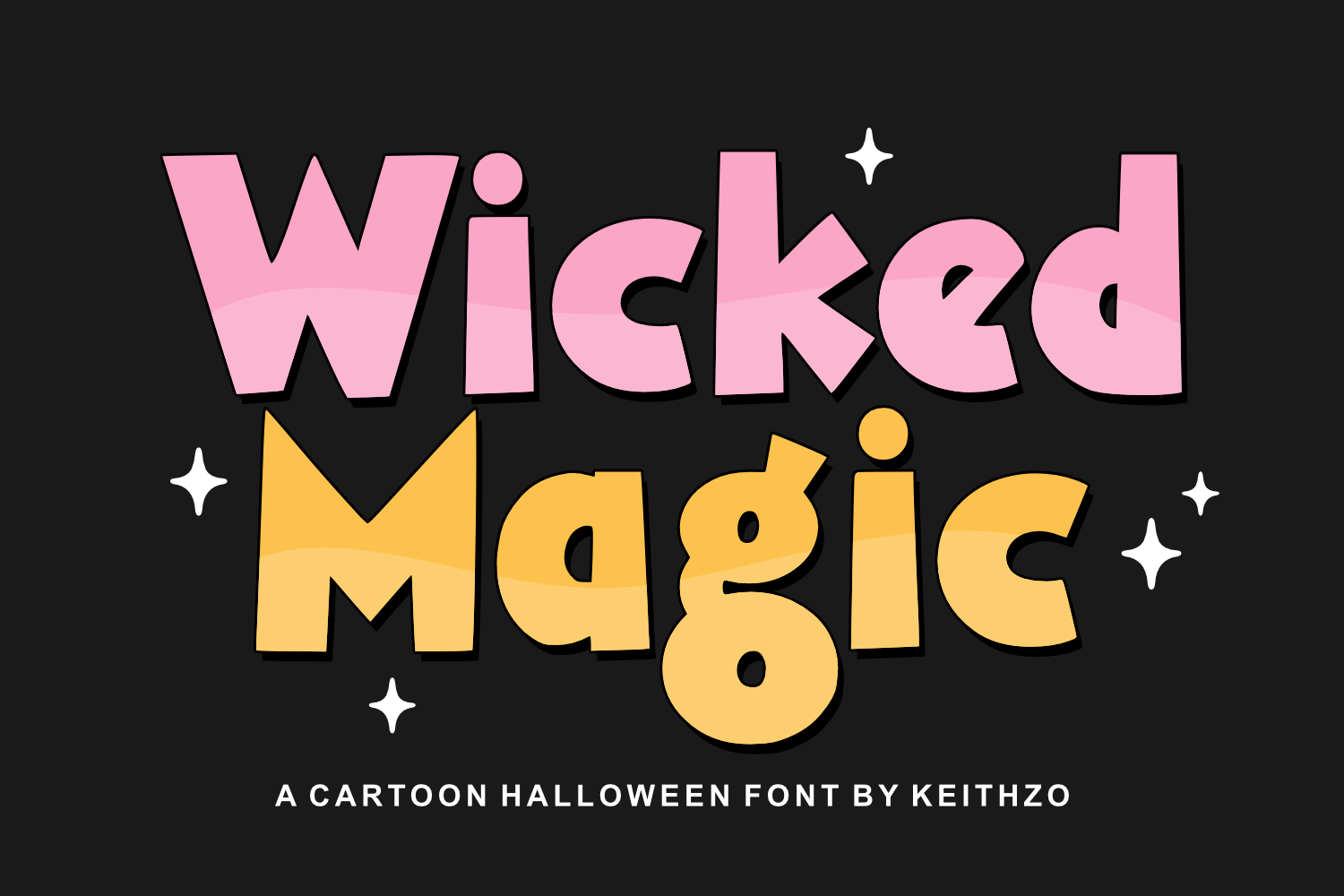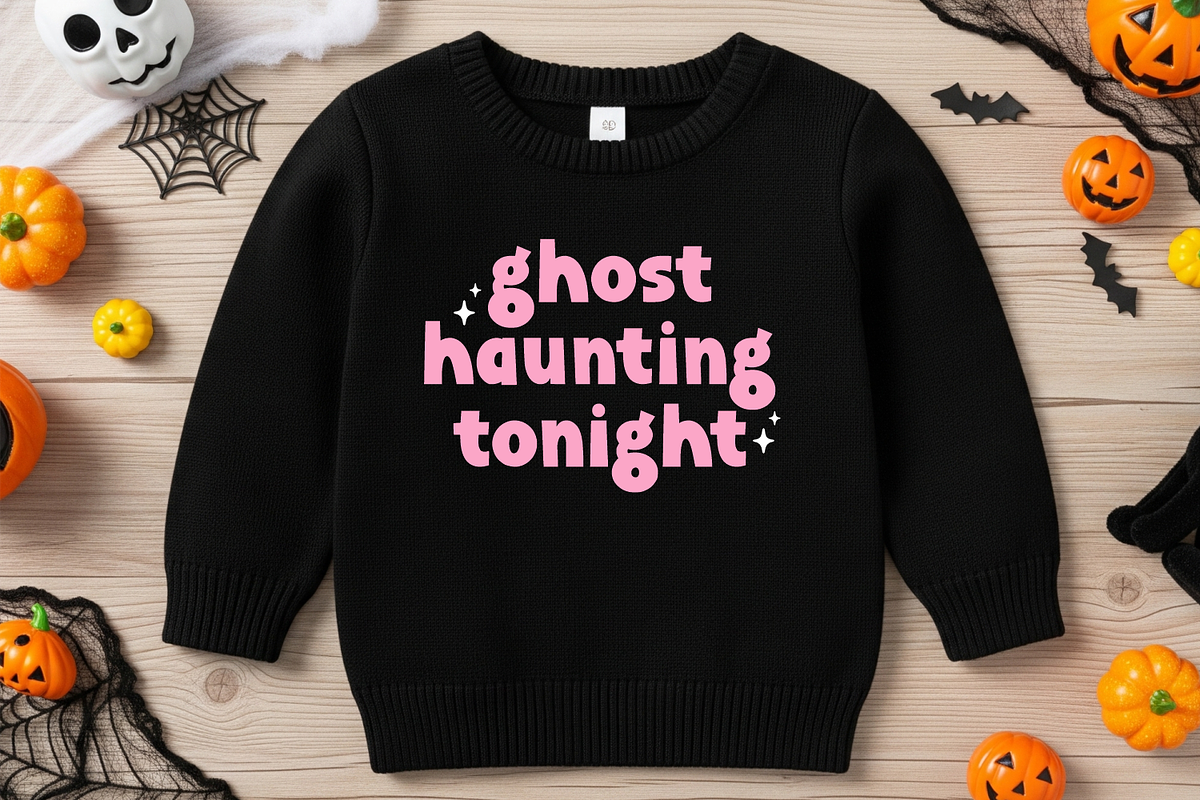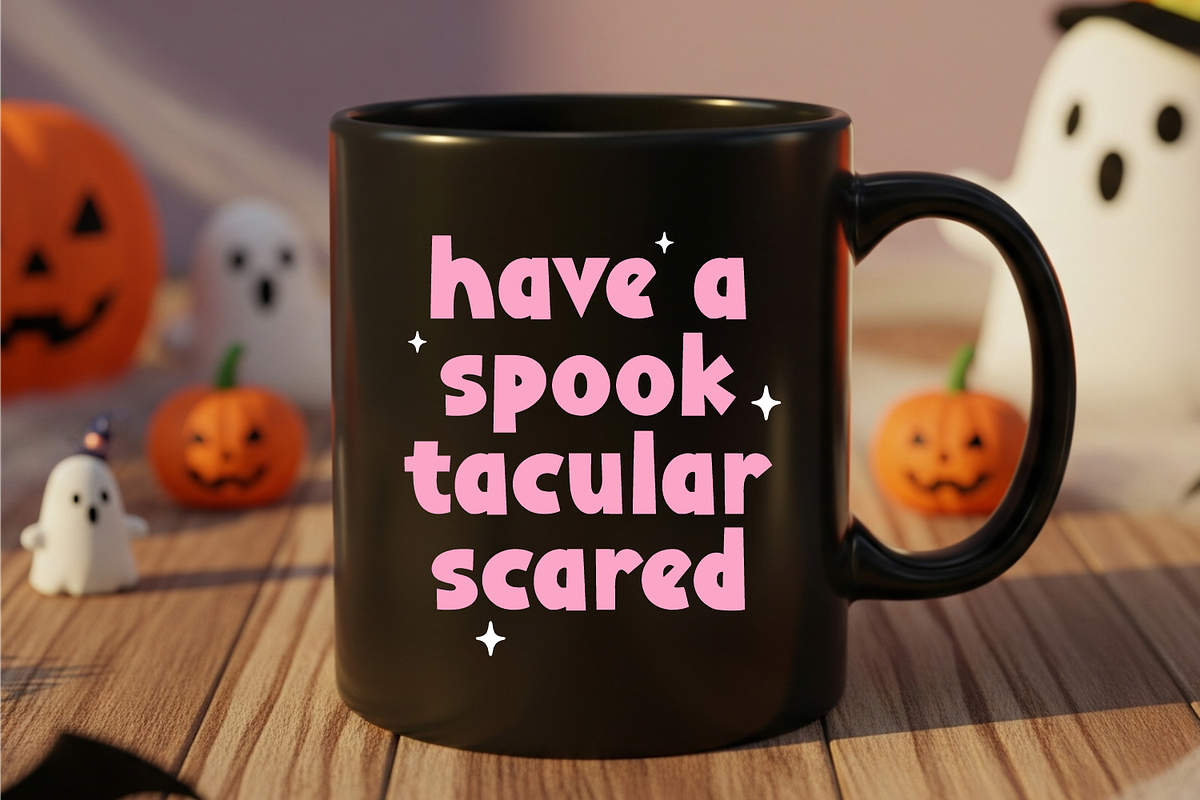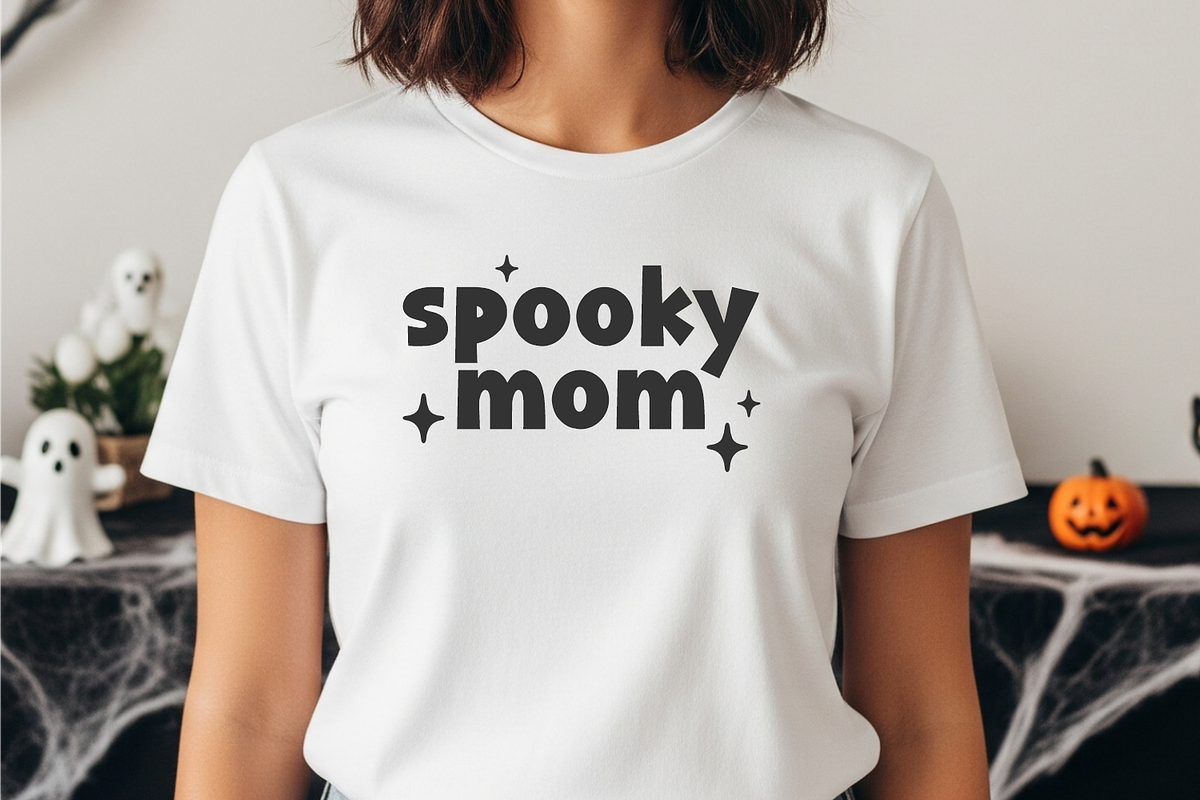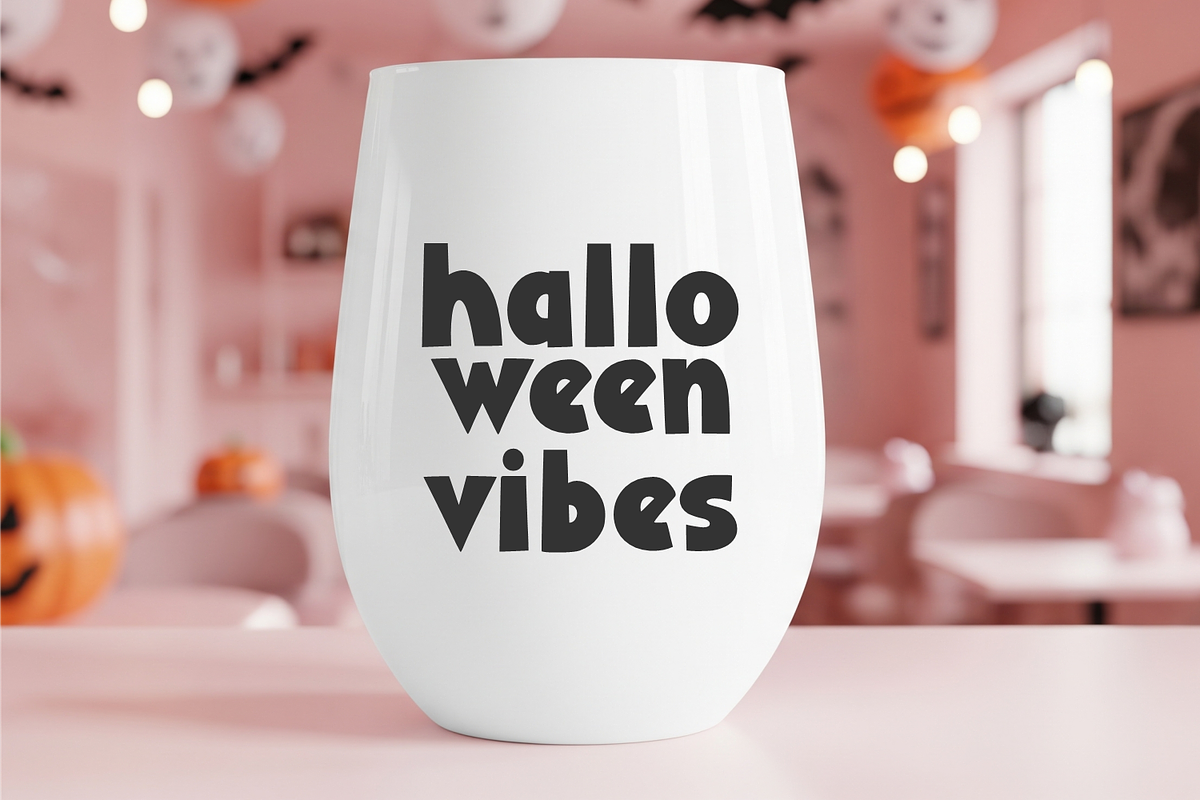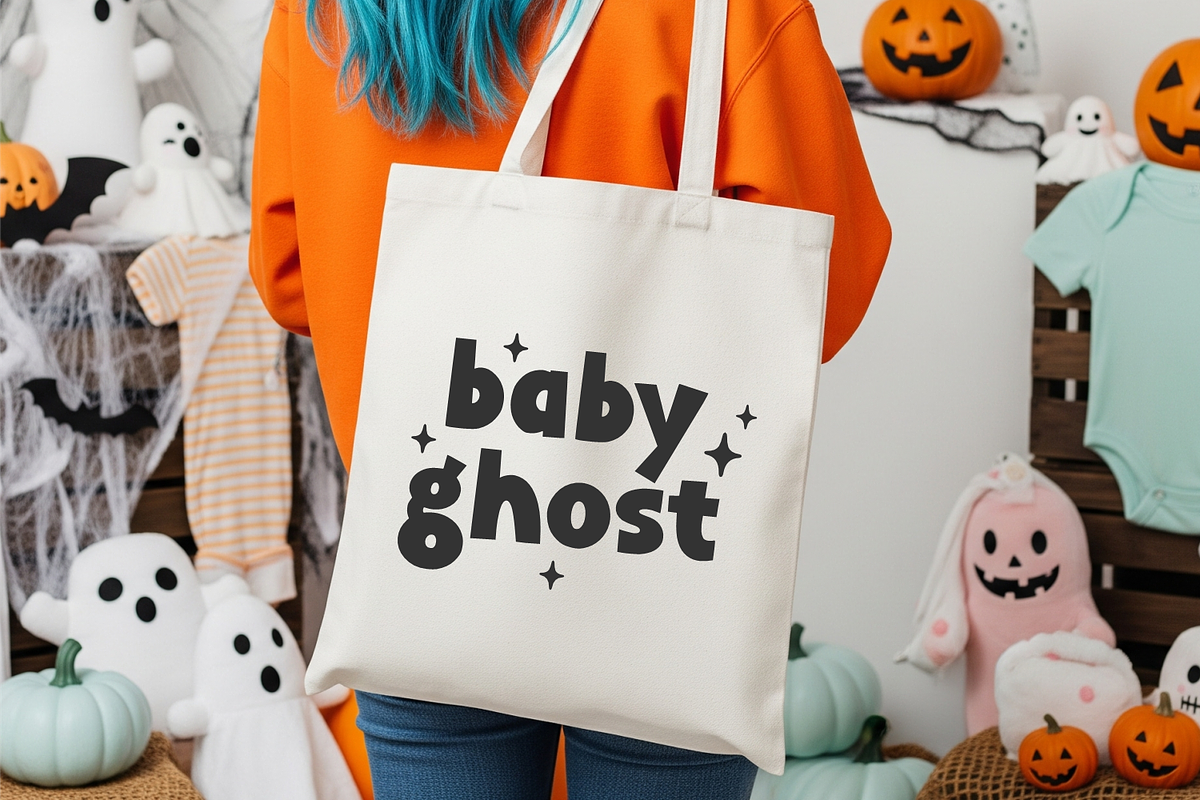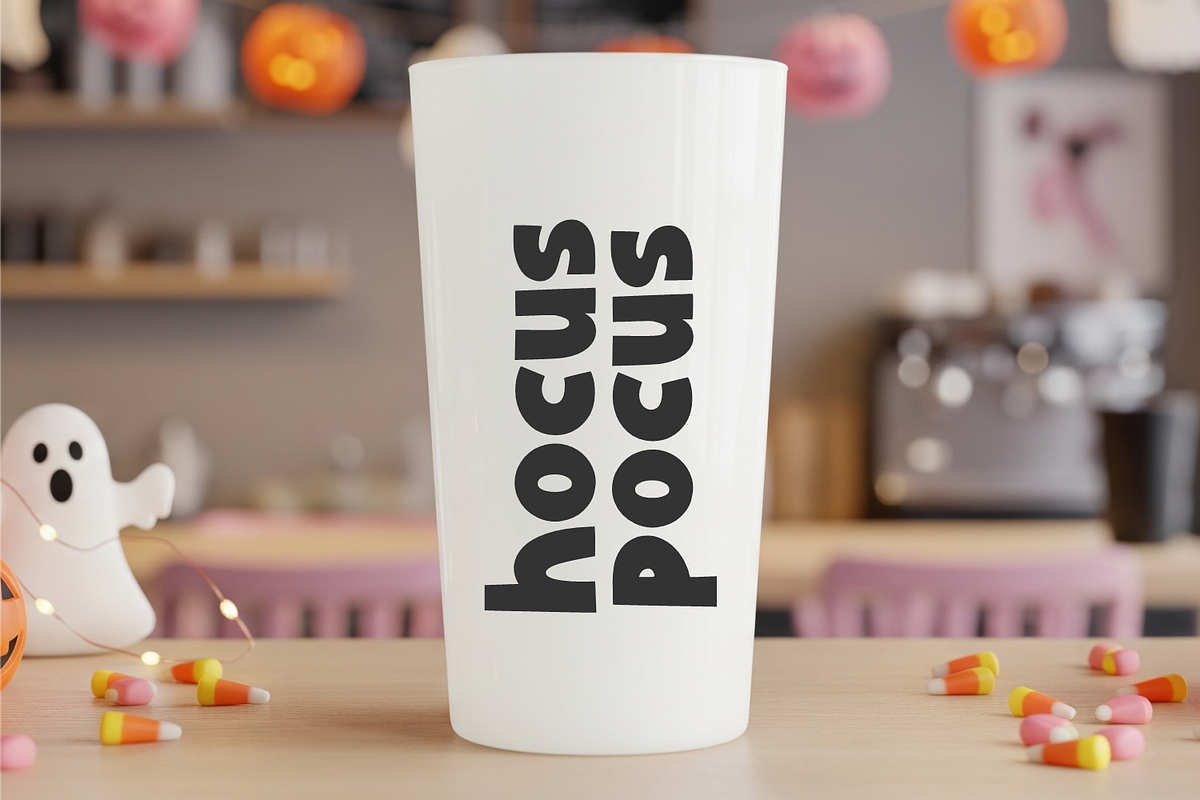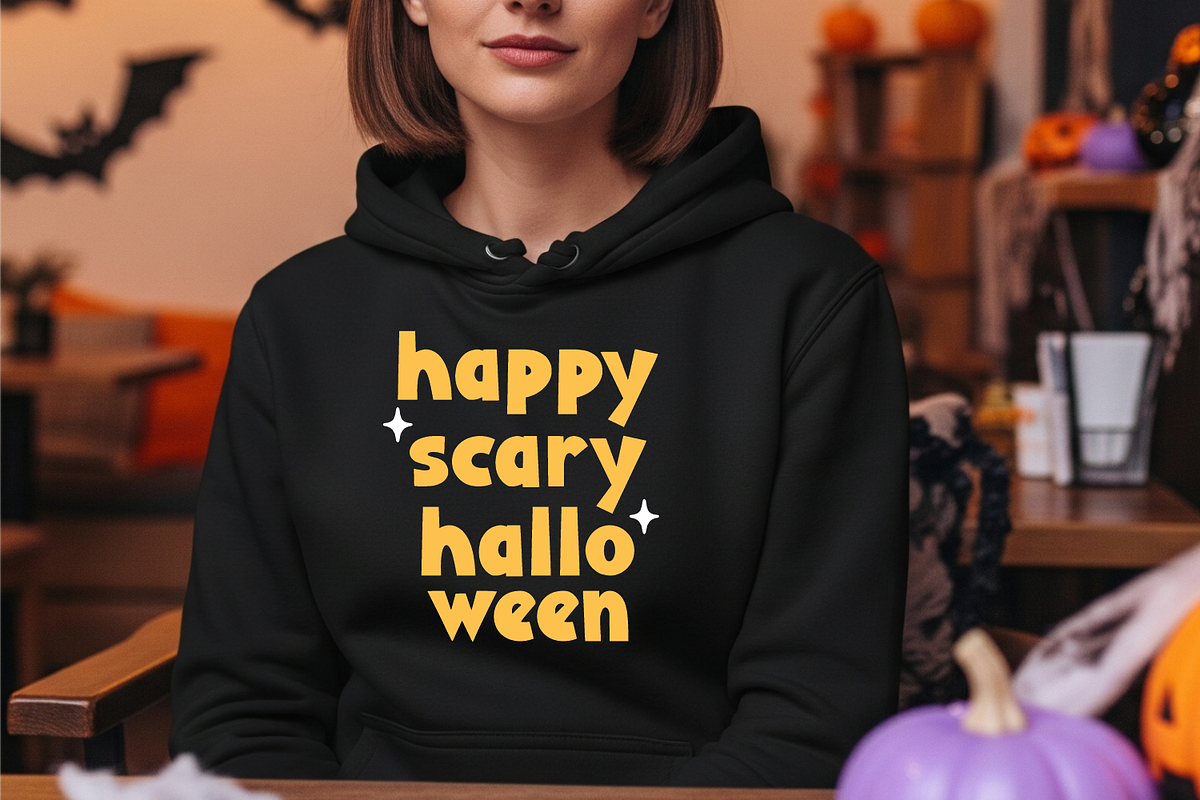
Wicked Magic - Spooky Halloween Font
Immerse yourself in the nostalgic appeal of Wicked Magic, a delightfully playful Halloween-inspired typeface! Showcasing a bold, engaging cartoonish style that harks back to the vibrant animation of the 90s, Wicked Magic is your perfect choice for any children’s design project. Its chubby, charming contours radiate a blend of spookiness and cuteness that’s sure to captivate both kids and adults alike. Unleash its unique charm on any Halloween-themed project, be it t-shirts, invitations, congratulatory cards, jackets, or posters. This font flourishes when used on tote bags, mugs, tumblers, stickers, and a plethora of other whimsical Halloween trinkets. This font is your ideal companion to transform standard items into Halloween masterpieces!